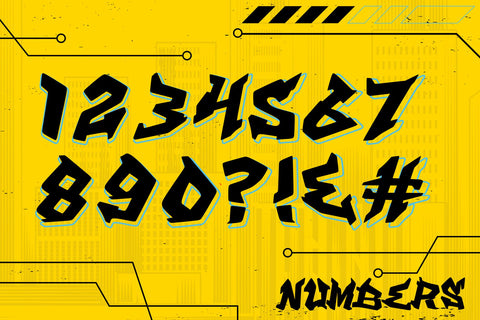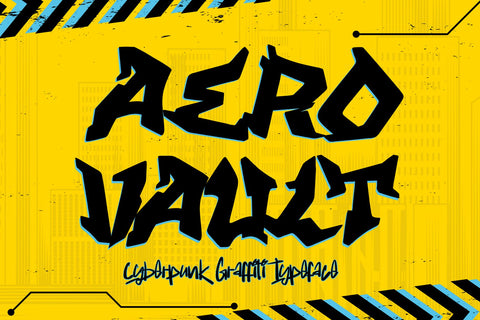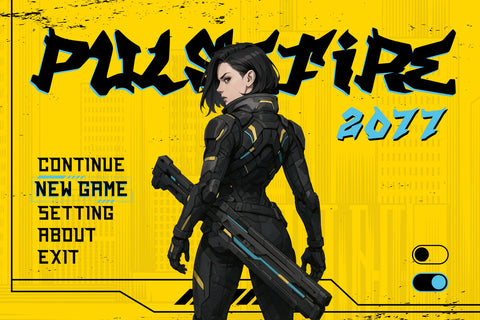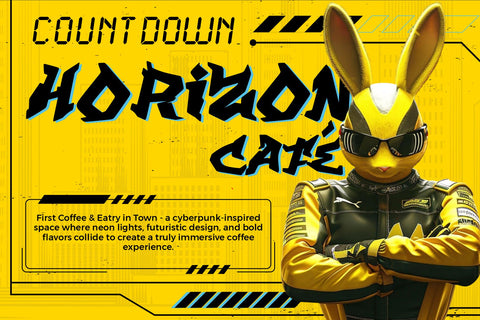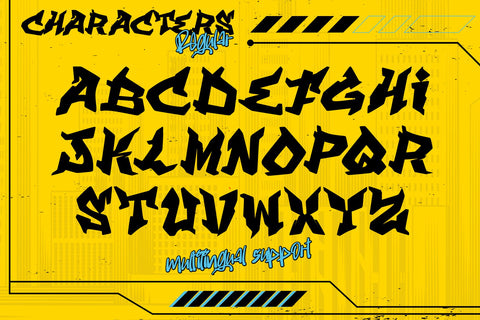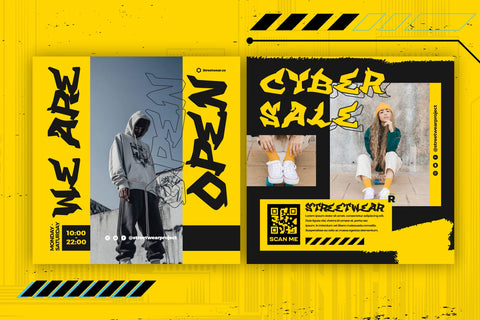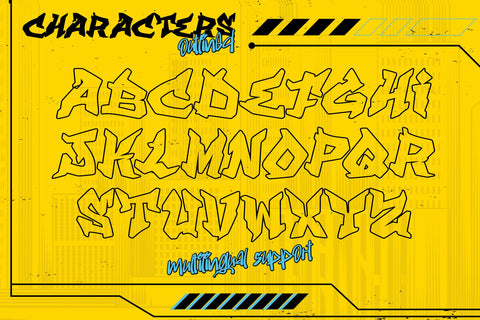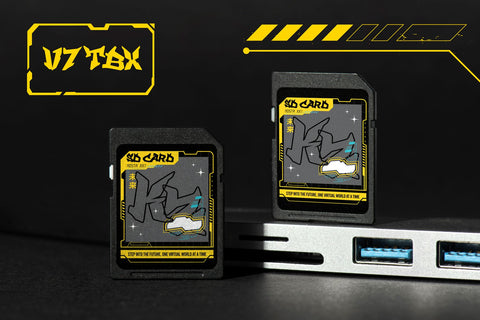
Aero Vault - Cyberpunk Graffiti Font
Aero Vault is a cyberpunk graffiti font that fuses the raw energy of street tagging with the neon edge of futuristic design. Inspired by the bold lettering seen on sci-fi streets and high-tech city walls, this font combines rebellion and innovation into one powerful visual identity.
Every stroke in Aero Vault is built with confidence — sharp corners, angular flow, and aggressive motion. The letterforms echo the spirit of graffiti handstyle, but with a modern digital structure that feels straight out of a cyberpunk dystopia. It’s made for designers who love to break boundaries and want to bring futuristic street energy into their work.
The aesthetic blends urban imperfection with tech precision. The bold construction and dynamic rhythm make every word look electrified, perfect for designs that need to feel fast, modern, and alive. From apparel branding to game titles, Aero Vault gives your project a sense of underground power and digital attitude.
- Uppercase Characters with sharp, expressive angles
- Numbers and Punctuation for complete typographic control
- Multilingual Support for global creators
- Stylistic Alternates for custom graffiti combinations
- Optimized for both digital and print designs
Perfect For:
- Cyberpunk and sci-fi branding
- Streetwear and urban fashion design
- Gaming titles and esports visuals
- Album covers, posters, and event flyers
- YouTube thumbnails and futuristic packaging
Why Designers Love Aero Vault
Because it captures the best of both worlds — raw street energy and futuristic precision. Aero Vault is wild, techy, and loud, yet balanced enough to use across professional designs. The lettering feels alive, with natural graffiti flow and mechanical accuracy blending seamlessly together.
Its cyberpunk edge makes it perfect for designers creating visuals in worlds of neon lights, electronic music, and underground rebellion. Aero Vault doesn’t just decorate your design — it dominates it, turning text into the main attraction.
Whether you’re working on futuristic graphics, digital posters, or edgy branding, Aero Vault brings bold identity, high contrast, and unstoppable motion to your composition.